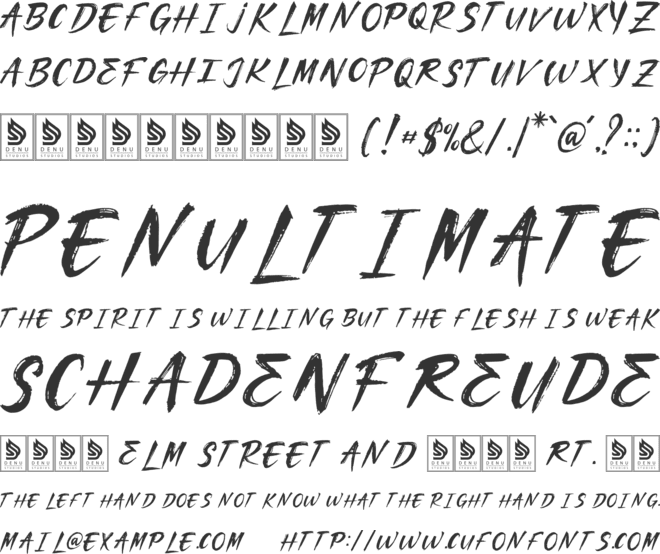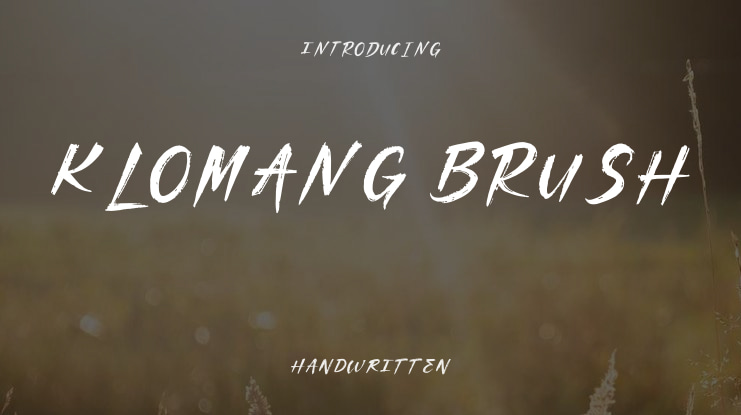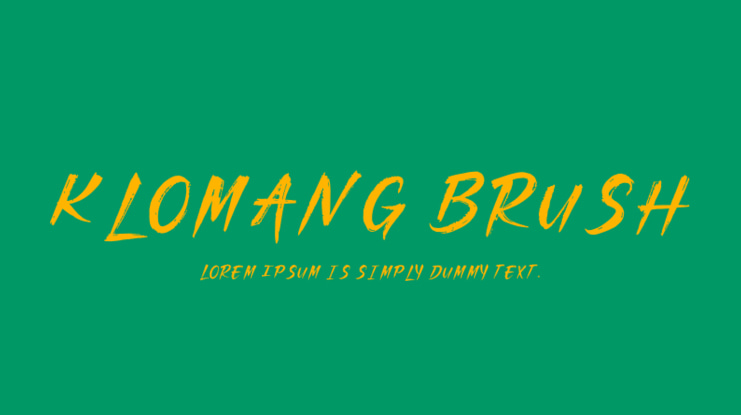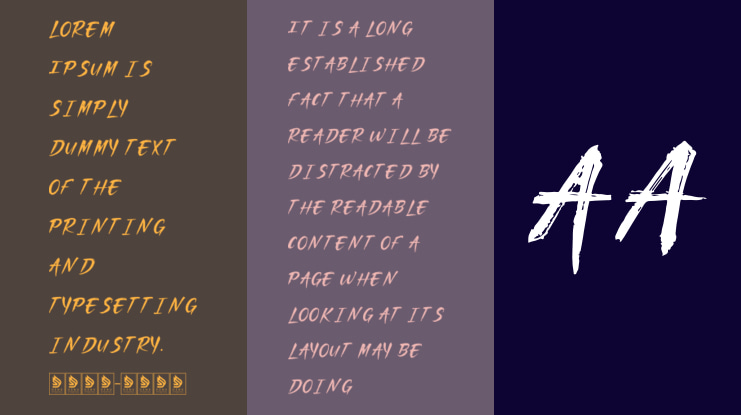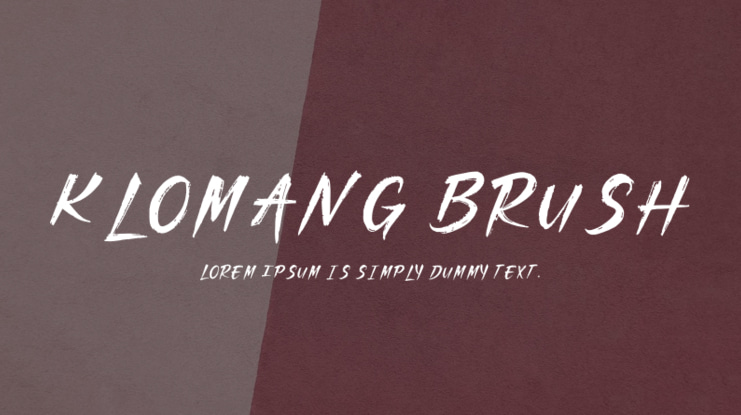
Klomang Brush | Brush Script Font is suitable for any projects such as: logos, branding projects, homeware designs, product packaging, mugs, quotes, posters, shopping bags, t-shirts, book covers, name card, invitation cards, greeting cards, label, photography, watermark, special events, and all your other lovely projects that need a Brush Script script taste.